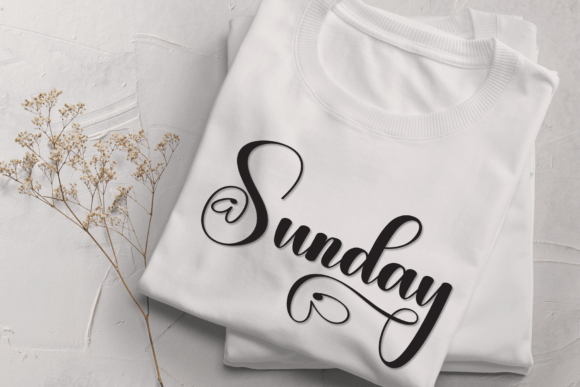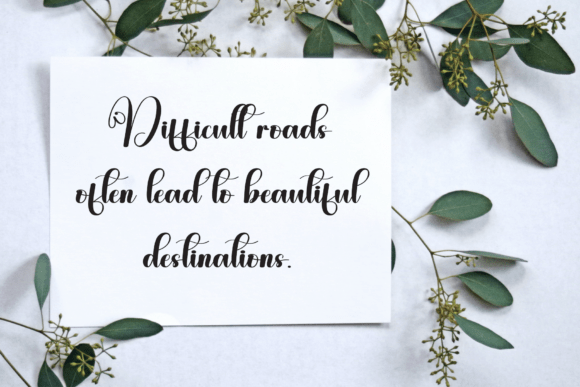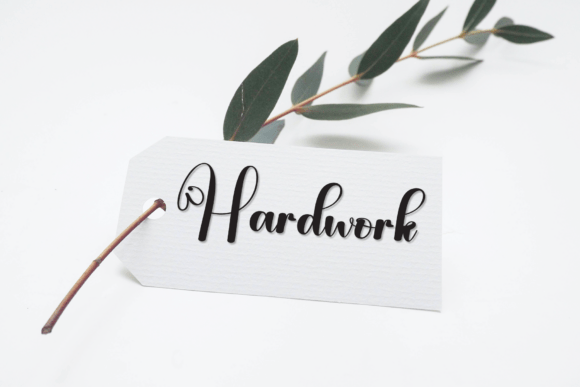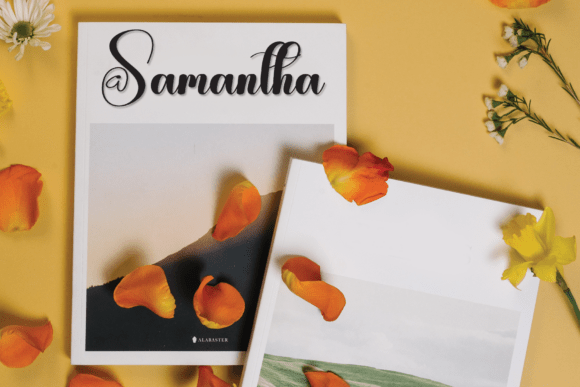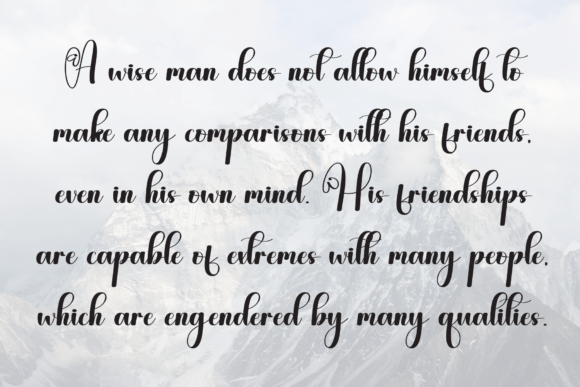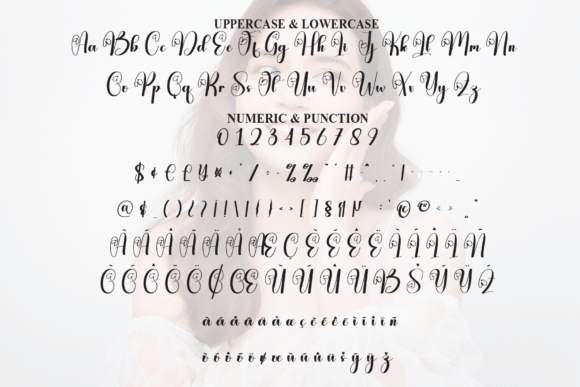
Introduction to Beautigirl Font
As you sit at your desk, surrounded by scattered papers and half-finished designs, the perfect font suddenly pops into your mind. The moment is fleeting, but the impact is lasting – and that’s exactly what the Beautigirl Font is designed to evoke. This modern handwritten font is more than just a design element; it’s a key to unlocking the essence of your creative project.
Whether you’re crafting a luxurious wedding invitation, a chic beauty branding campaign, or heartfelt lifestyle content, the Beautigirl Font offers a genuine, hand-penned look that radiates elegance and affection. With its high-quality design and versatility, it’s the perfect addition to any designer’s toolkit, providing a unique touch that sets their work apart from the rest.
Key Features of Beautigirl Font
- High-quality, elegant design perfect for creative projects and design resources.
- Unique characteristics include its cursive and script styles, ideal for adding a touch of elegance to any design.
- Can be used in a variety of creative projects, including logos, graphics, and typography-based designs.
Honest Review: Beautigirl Font
I recently had the chance to work with the Beautigirl Font, and I must say it’s been a delightful experience. As a designer, I’m always on the lookout for high-quality design resources that can elevate my creative projects. The Beautigirl Font fits the bill perfectly.
Overall, I’m impressed with the Beautigirl Font and would recommend it to designers looking for a high-quality design resource. While it may have some limitations, it’s a great option for personal or small-scale projects. With a little creativity, the Beautigirl Font can really make your designs stand out.
Tips for Getting the Most Out of Beautigirl Font
For the best results, use Beautigirl Font in conjunction with a high-quality design resource. Experiment with different font sizes, colors, and styles to create a unique look. You can also use the font to create a transparent background, making it perfect for creative projects.
Beautigirl Font is ideal for a variety of creative projects, including social media graphics, blog posts, and presentations. Its high-quality design makes it a great choice for any project that requires a touch of elegance and sophistication.